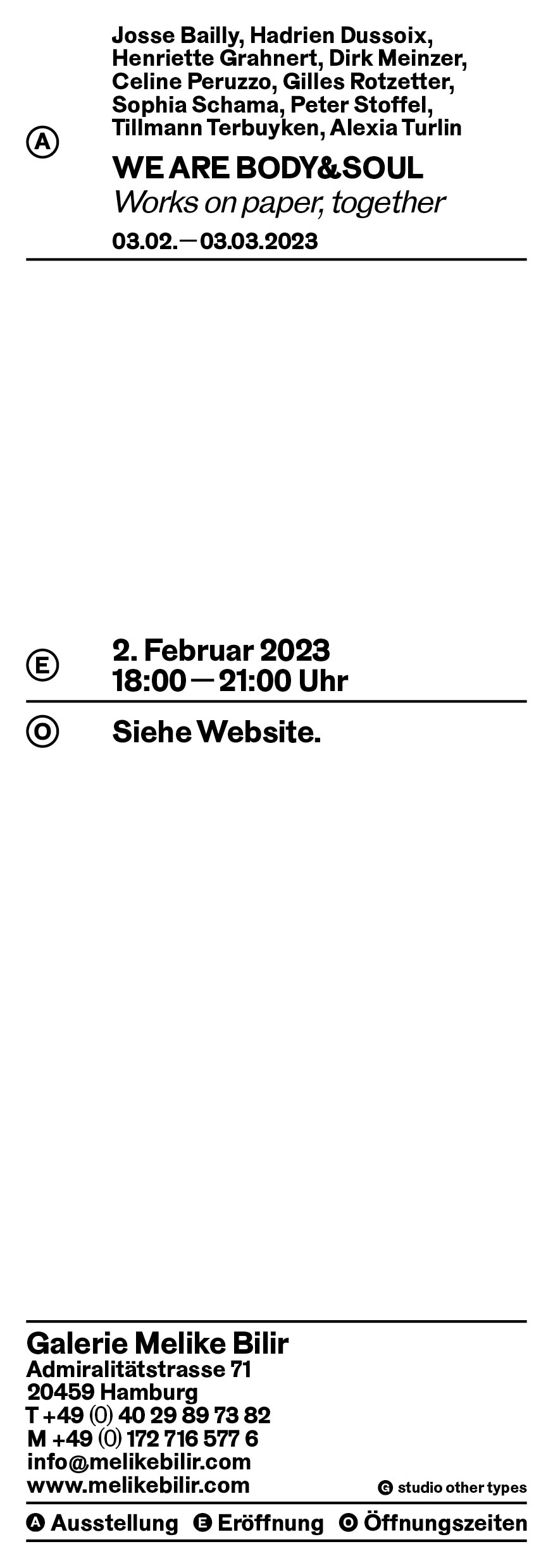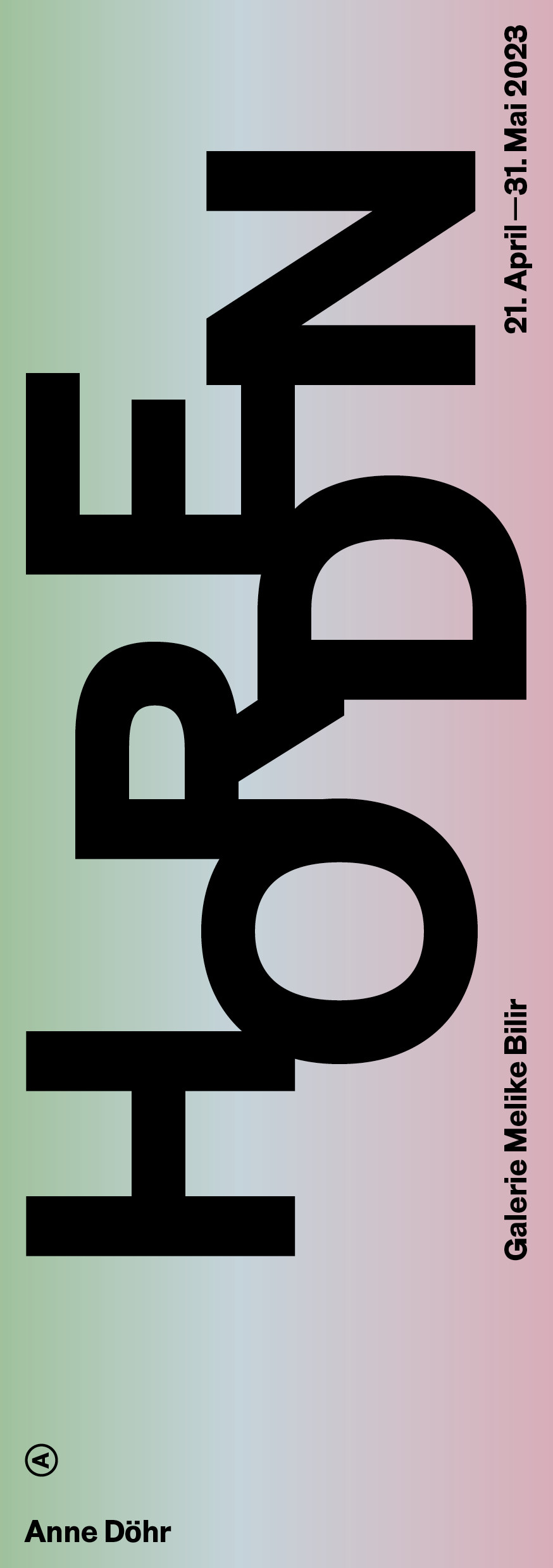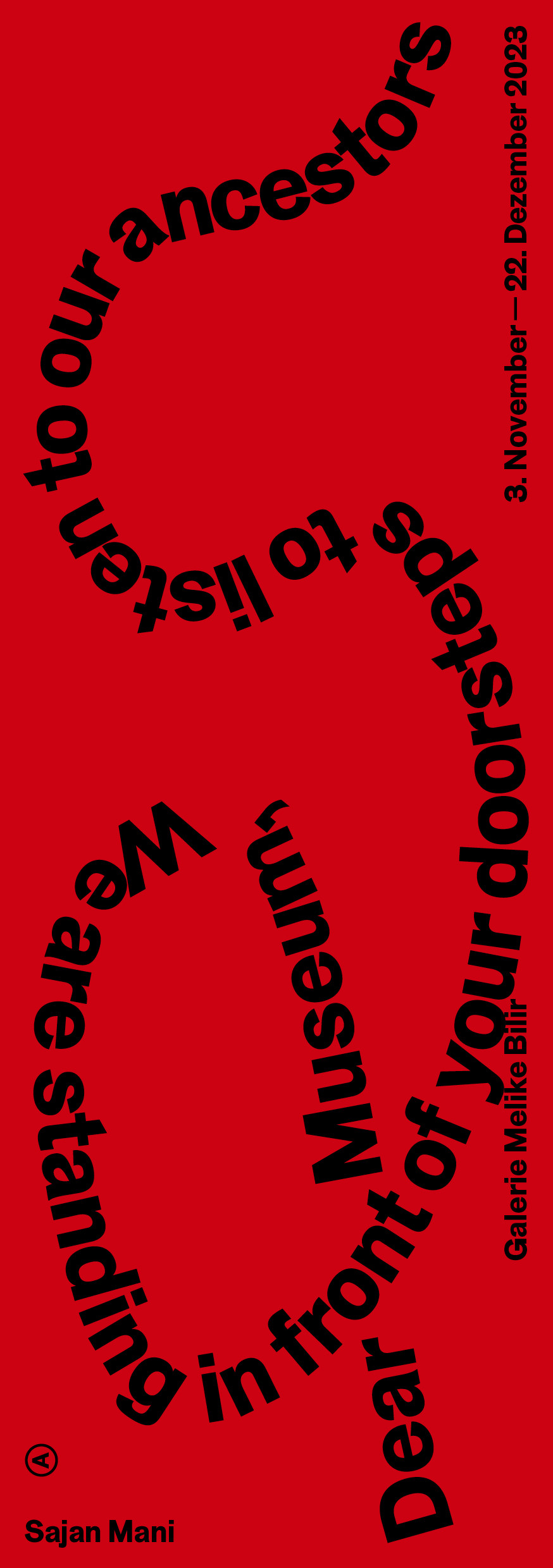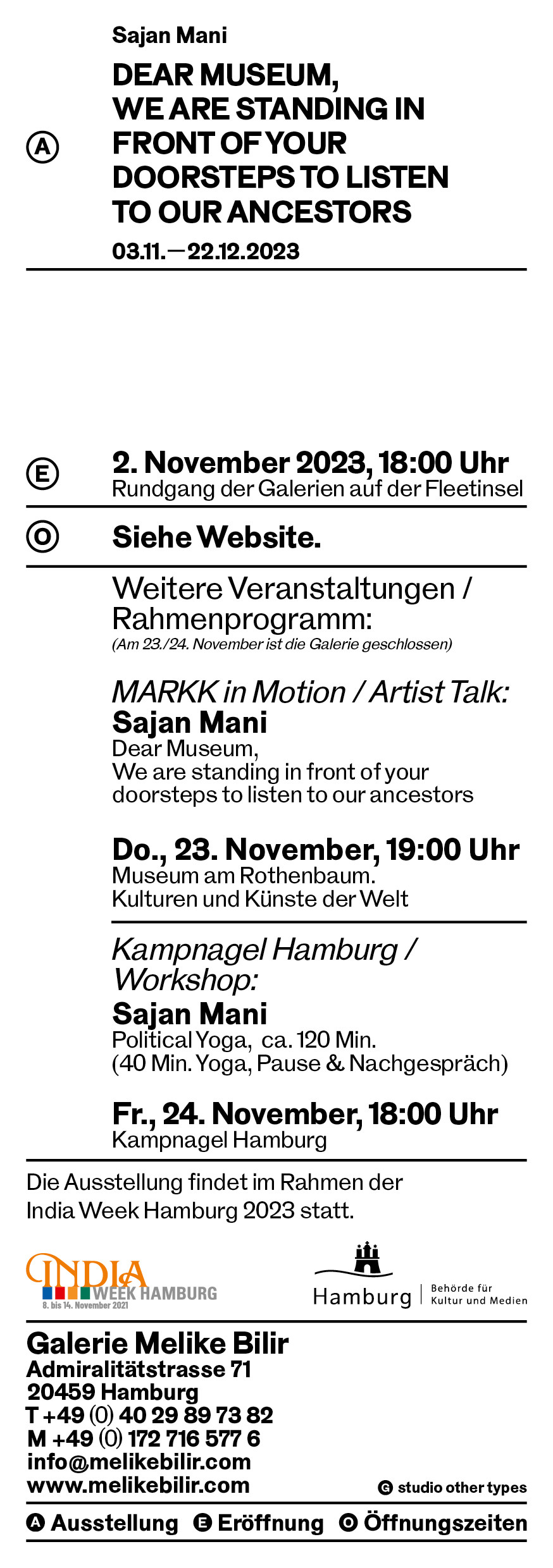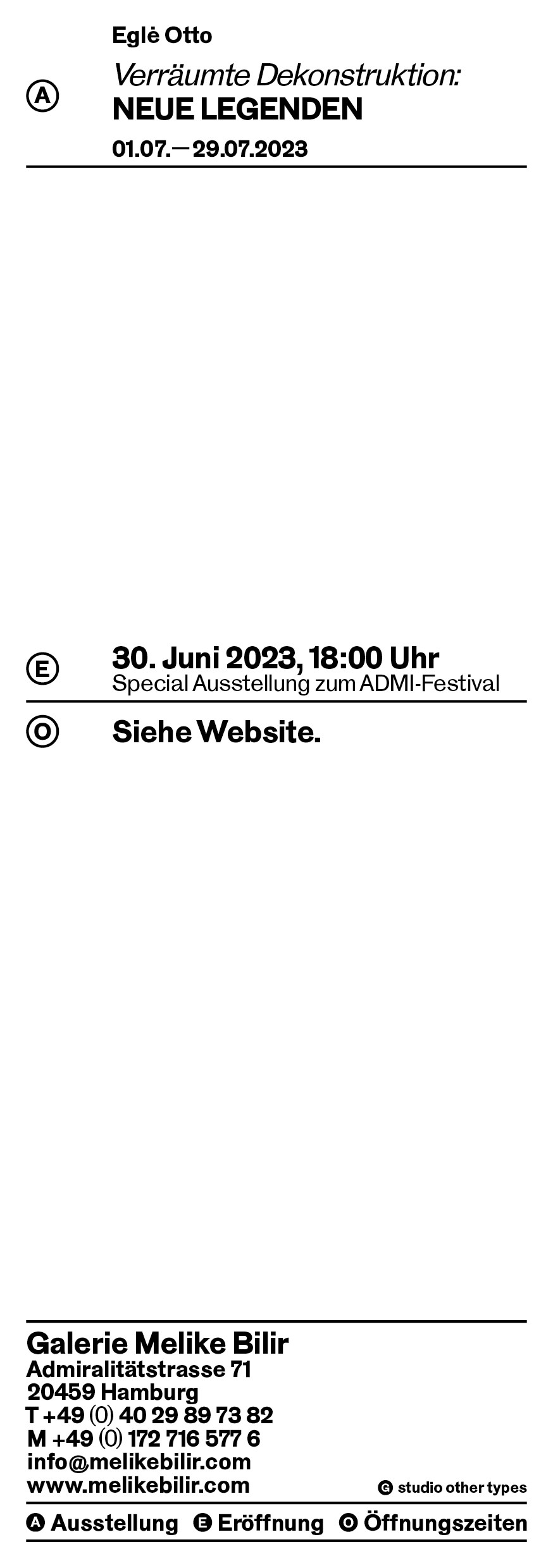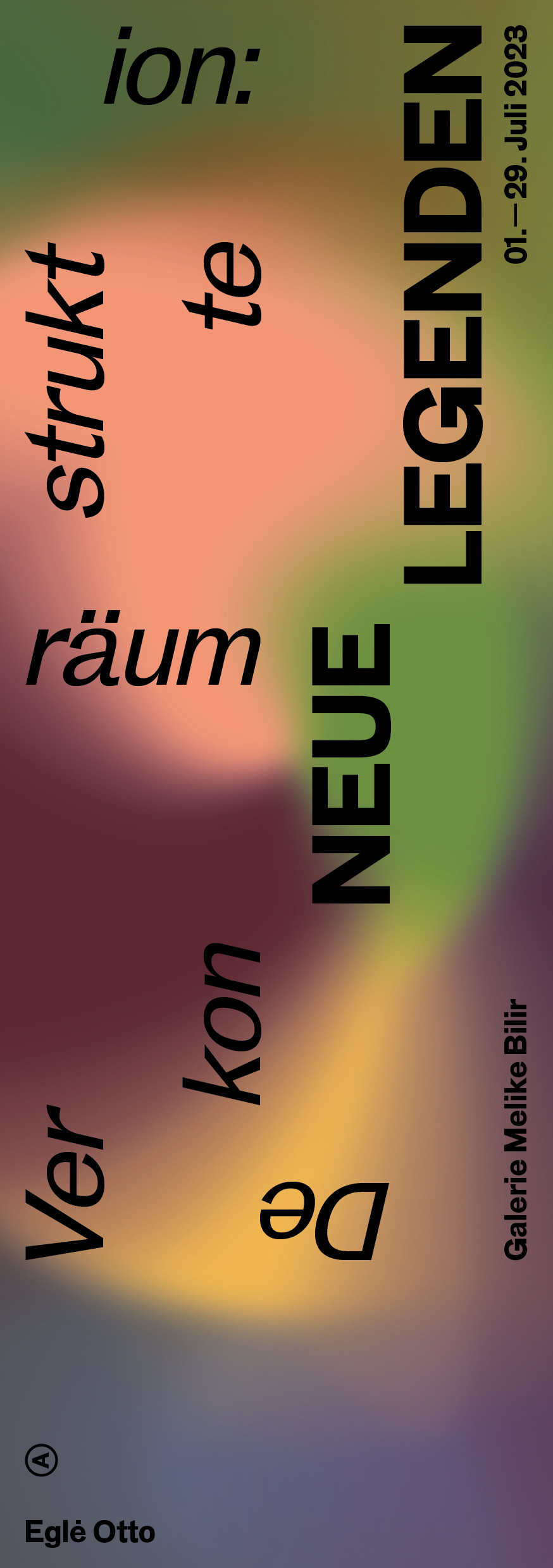
Exhibition Flyer 2023
An overview of flyers that have been created for the different exhibitions at Gallery Melike Bilir in 2023. The flyers are characterized by a playful use of type and always remain within the framework of the gallery’s corporate identity.
This year, works by the artist collective We are Body & Soul, the artists Anne Döhr, Egle Otto and Sajan Mahi were shown, among others.
Typeface: BT Grotesk by Scott Vander Zee